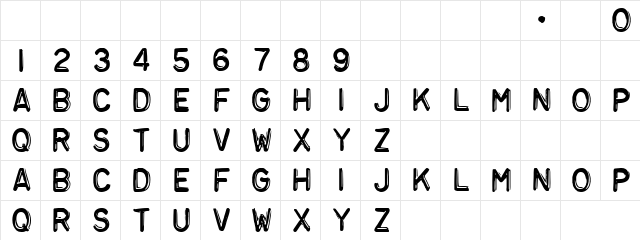
Wall Poster Regular
Design Context for Wall Poster Typeface
Wall Poster takes a measured approach to typography — its balanced proportions and neutral character make it a reliable workhorse for both digital and print work.